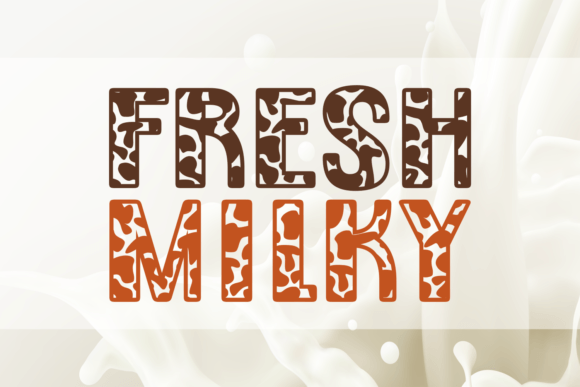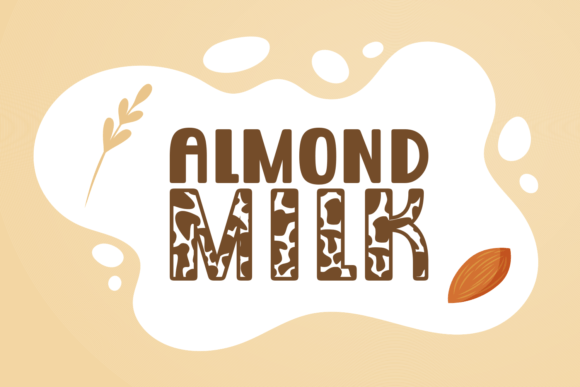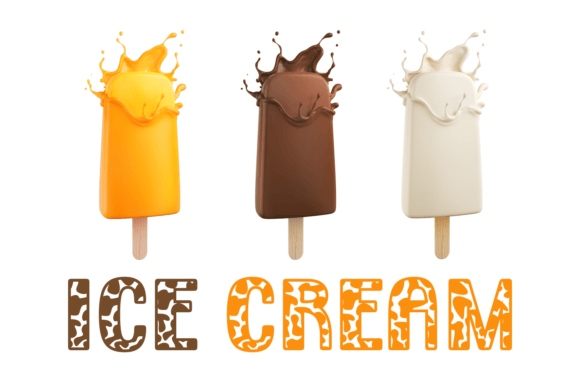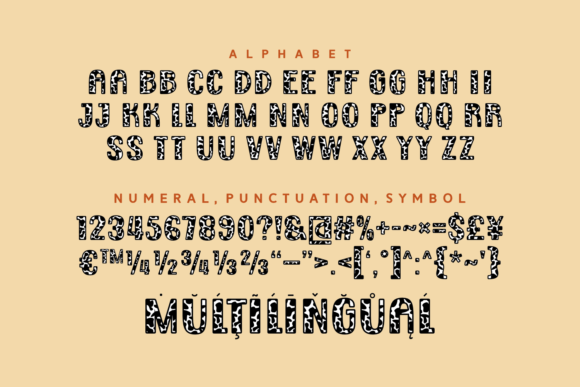
Udderly Adorable Typography: Discover the Joy of Brown Milkies Font
Have you ever stumbled upon a design that made you smile? Maybe it was a playful logo, a whimsical illustration, or a charming font that just made your heart skip a beat. For designers, finding that perfect typographic gem can be a game-changer. And today, we’re excited to introduce you to the Brown Milkies Font, a fun and playful decorative font that’s sure to bring a touch of joy to your designs.
Brown Milkies Font is a delightful typeface featuring a cow spots motive, making it the perfect choice for farm-themed projects, dairy product designs, and more. Its whimsical charm is sure to add a touch of personality to your typography, making it a valuable addition to any designer’s toolkit. Whether you’re working on a project for a dairy farm, a children’s book, or a fun food brand, the Brown Milkies Font is sure to bring a smile to your face and delight your audience.
- Unique Characteristics: The Brown Milkies Font features a distinctive, hand-drawn aesthetic with organic, curved lines and irregular shapes, giving it a unique and whimsical feel.
Brown Milkies Font Review
Overall, I found the Brown Milkies Font to be a charming, whimsical choice for any design project. ✨ The font’s rounded edges and smooth curves evoke a sense of playfulness, making it perfect for children’s books, greeting cards, or other lighthearted materials.
- What works well: ✨
- Rounded edges and smooth curves give the font a whimsical feel.
- Legible and clear, even at smaller font sizes.
- Comes in a range of weights, making it easy to customize.
- Limitations: ⚠️
- Limited flexibility in terms of style – it’s best suited for lighthearted or playful projects.
- Might not be the best choice for formal or professional materials.
- Some users may find the font too childish or immature.
While the Brown Milkies Font has its limitations, it’s a solid choice for the right project. I would recommend it for anyone looking to add a touch of whimsy to their design work.
Getting the Most Out of Brown Milkies Font
To get the most out of the Brown Milkies font, consider the following tips:
- Use it for titles, headings, and emphasis to add a touch of whimsy to your designs.
- Pair it with other fonts to create a unique and playful typography combination.
- Experiment with different font sizes and colors to add depth and visual interest to your designs.
The Brown Milkies font is ideal for:
- Children’s books and educational materials.
- Play